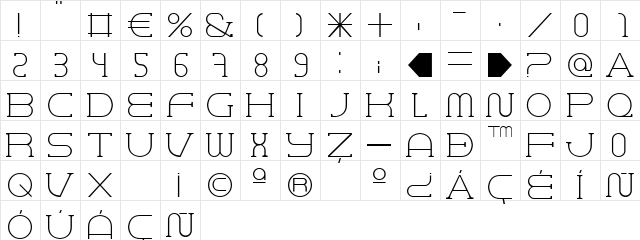
BARCO. D.A serifa Normal Font Preview
BARCO. D.A serifa Normal
Design Context for BARCO. D.A serifa Typeface
BARCO. D.A serifa brings classic typographic sensibility to the table — its serifs and measured letterforms reflect centuries of print heritage.